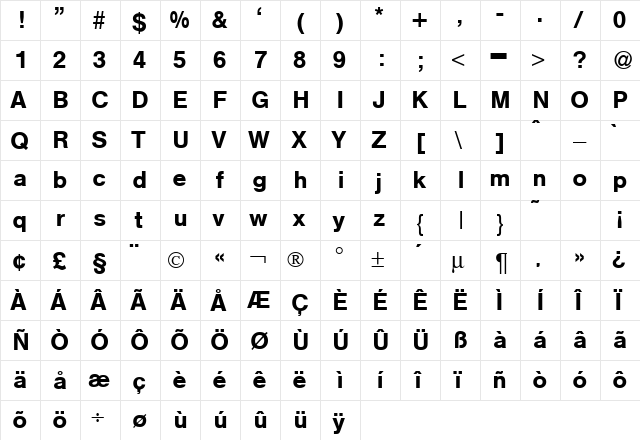
HelbaMedDB Bold Font Preview
HelbaMedDB Bold
HelbaMedDB Bold Font Details
Design Context for HelbaMedDB Typeface
HelbaMedDB offers clean, dependable letterforms without strong stylistic allegiance, making it a practical choice for designers who need flexibility. Its bold stroke weight gives it real presence on the page.